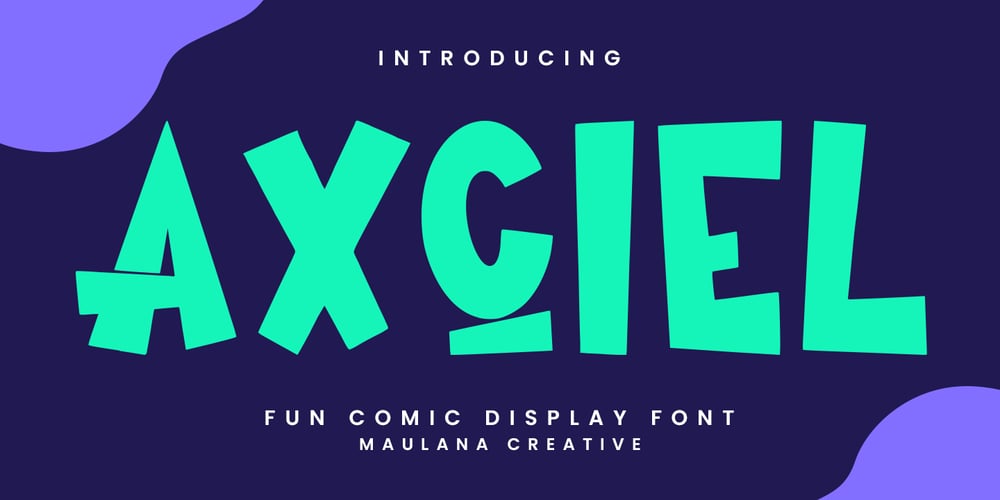
MC Axciel
MC Axciel font
MC Axciel Font Family was designed by Gilang Maulana and published by Maulana Creative. MC Axciel contains 1 styles and family package options. Axciel comic display font. bold stroke, fun character with a bit of ligatures and alternates. To give you an extra creative work. Axciel comic display font support multilingual more than 100+ language. This font is good for logo design, Social media, Movie Titles, Books Titles, a short text even a long text letter and good for your secondary text font with script or serif. Make a stunning work with Axciel comic display font. Cheers, Maulana Creative